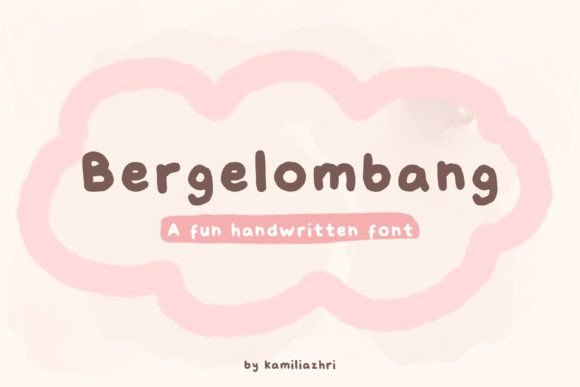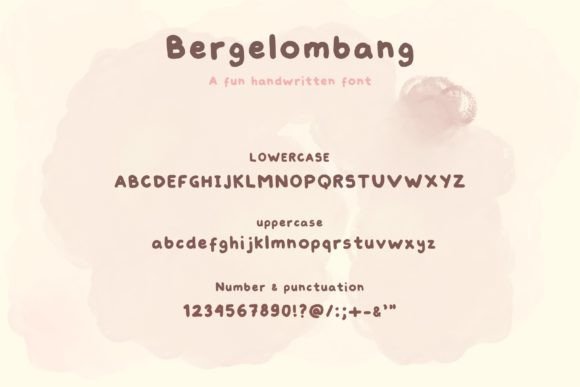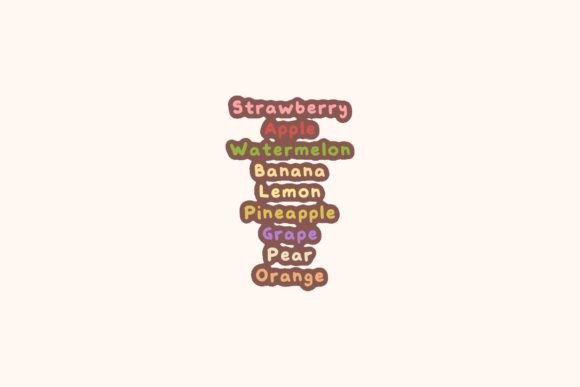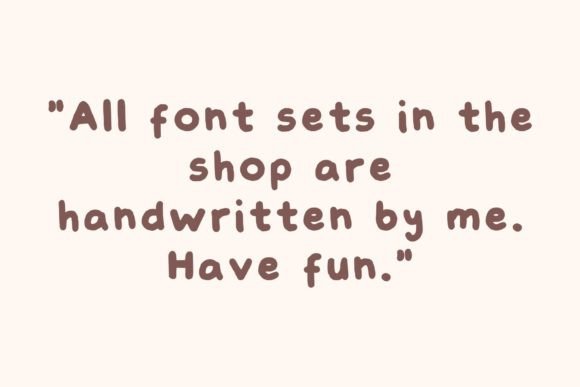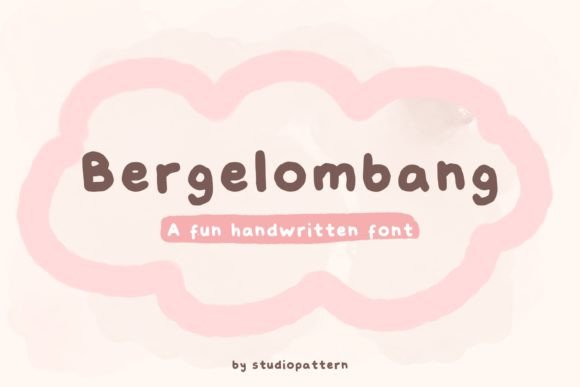
Bergelombang Font: The Fun and Cute Handwritten Font for All Occasions
Bergelombang is a fun and cute handwritten font that has captured the hearts of designers and crafters alike. Whether you’re using it for crafts, digital design, presentations, or making greeting cards, this font has the potential to become your favorite font, no matter the occasion. In this article, we’ll dive into the world of Bergelombang font, exploring its features, uses, and benefits.
What is Bergelombang Font?
Bergelombang is a handwritten font that exudes a playful and charming vibe. Its unique and irregular strokes give it a personal touch, making it perfect for projects that require a friendly and approachable tone. The font’s name, Bergelombang, is derived from the Indonesian word for “wave,” which reflects the font’s wavy and fluid lines.
Features of Bergelombang Font
Bergelombang font boasts several features that make it a standout choice for designers and crafters:
- Handwritten style: Bergelombang’s handwritten style gives it a personal and relatable feel, making it perfect for projects that require a human touch.
- Unique strokes: The font’s irregular strokes add a playful and whimsical touch to any project.
- Versatile: Bergelombang font can be used for a wide range of projects, from digital design to crafts and paper crafting.
- Easy to read: Despite its playful style, Bergelombang font is easy to read, making it perfect for body text and headings.
Uses of Bergelombang Font
Bergelombang font is an incredibly versatile font that can be used for various projects, including:
- Crafts: Use Bergelombang font to add a personal touch to your scrapbooking, journaling, and other paper crafting projects.
- Digital design: Bergelombang font is perfect for digital designers who want to add a playful touch to their designs, such as social media graphics, blog posts, and presentations.
- Greeting cards: Create personalized greeting cards for special occasions, such as birthdays, weddings, and holidays.
- Signage: Use Bergelombang font to create eye-catching signs for events, businesses, or parties.
Benefits of Using Bergelombang Font
Using Bergelombang font offers several benefits, including:
- Emotional connection: Bergelombang font’s handwritten style creates an emotional connection with your audience, making your project more relatable and engaging.
- Uniqueness: Bergelombang font’s unique strokes and style set it apart from other fonts, making your project stand out from the crowd.
- Flexibility: Bergelombang font can be used for various projects, making it a great addition to your font library.
Tips for Using Bergelombang Font
Here are some tips for using Bergelombang font effectively:
- Pair with other fonts: Pair Bergelombang font with other fonts to create a unique and visually appealing combination.
- Experiment with colors: Bergelombang font looks great in various colors, so don’t be afraid to experiment and find the perfect hue for your project.
- Use for headings and body text: Bergelombang font is easy to read, making it perfect for both headings and body text.
Bergelombang font is a fun and cute handwritten font that is perfect for designers and crafters who want to add a personal touch to their projects. Its unique strokes, versatility, and ease of use make it an excellent addition to any font library. Whether you’re creating crafts, digital designs, or greeting cards, Bergelombang font is sure to become your go-to font for all occasions.